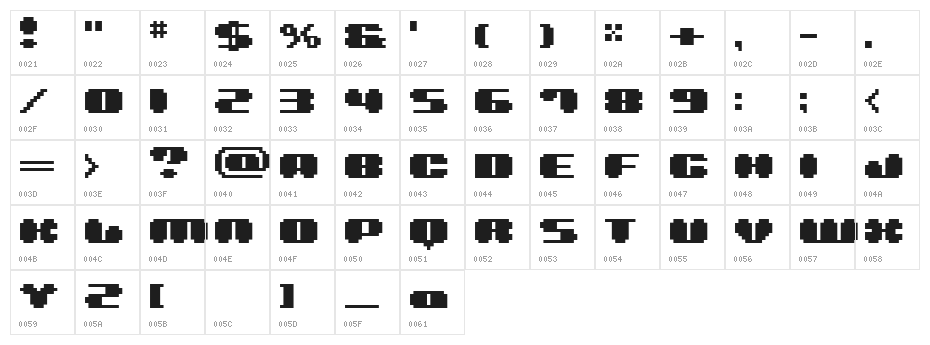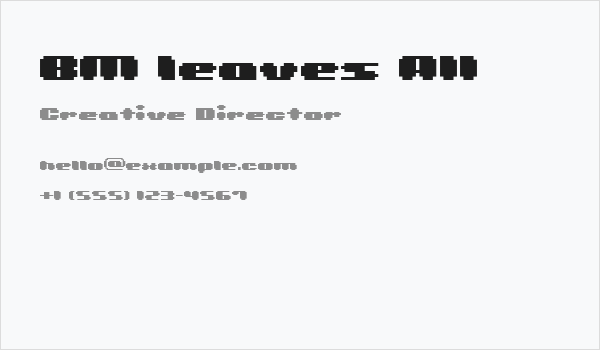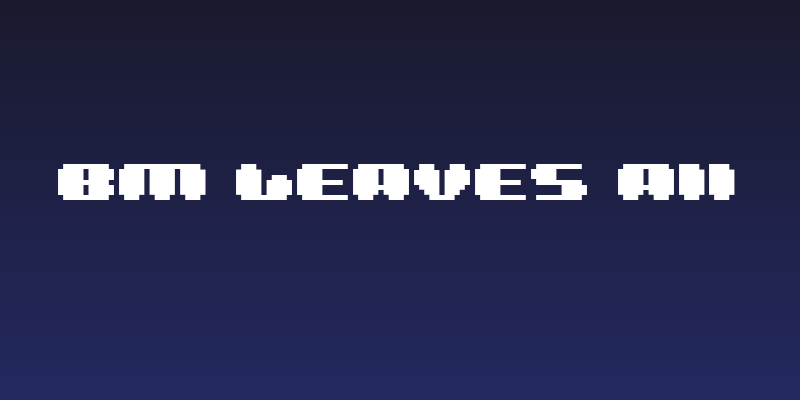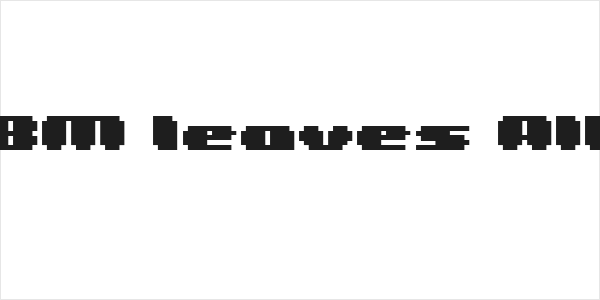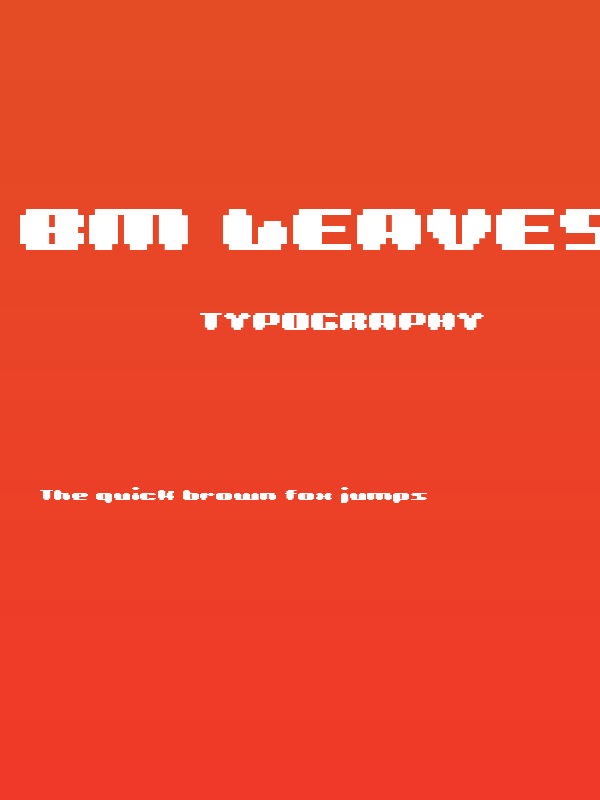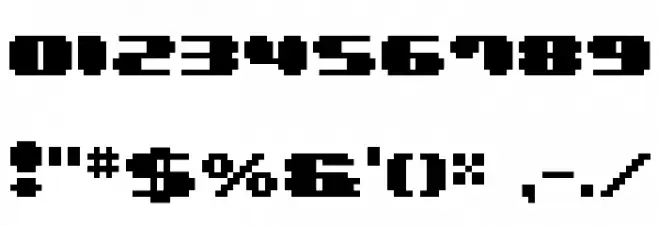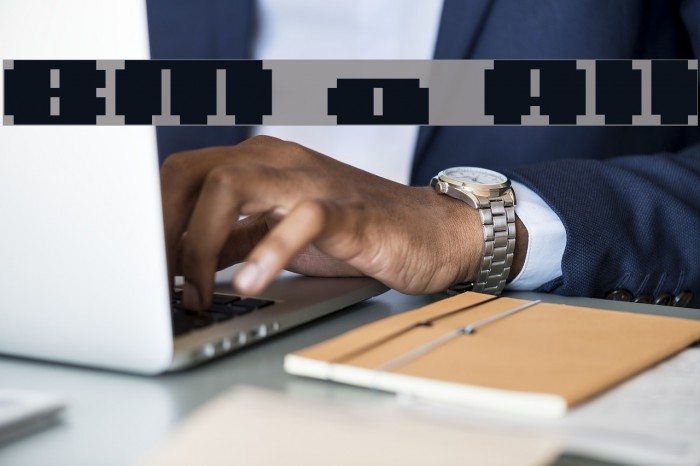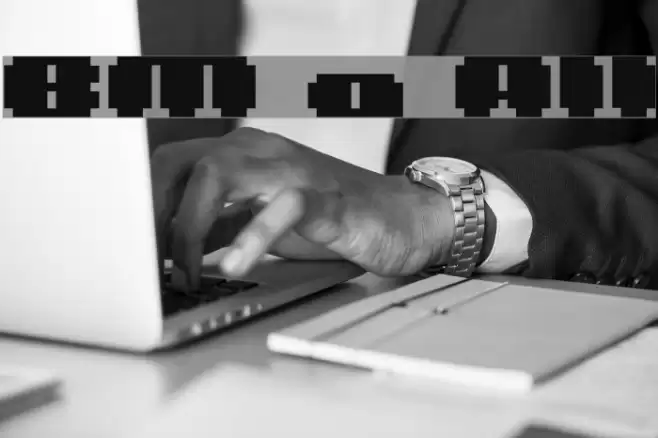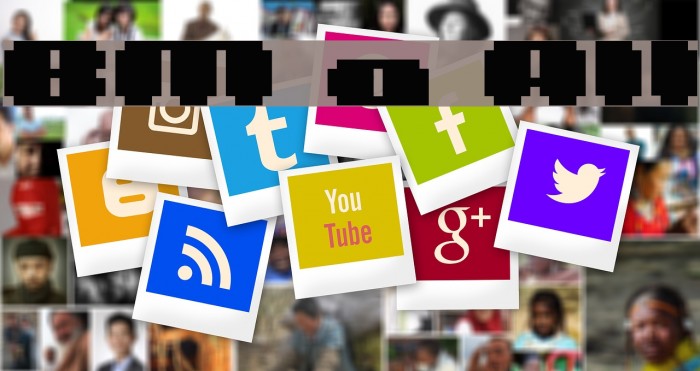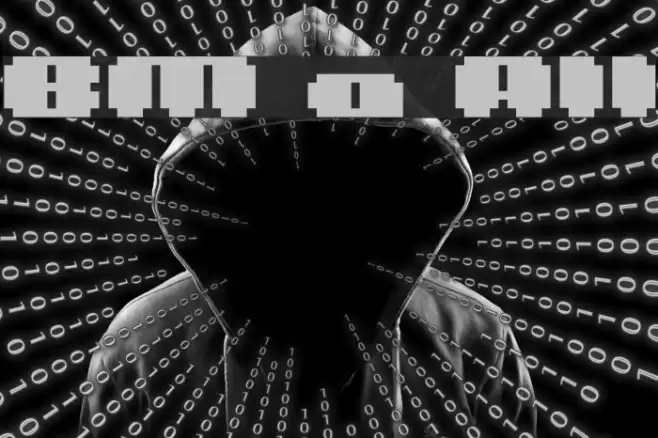
BM leaves A11 Font
BM leaves A11 Description
This font features a bold, pixelated style reminiscent of early digital or video game typography. Each character is constructed with a blocky, geometric form, giving it a distinctly retro and digital aesthetic. The uppercase and lowercase letters maintain a consistent width, contributing to a uniform appearance across text. Numbers and special characters follow the same design principles, ensuring cohesion throughout. The font's style is both striking and nostalgic, making it ideal for projects that aim to evoke a sense of classic digital or arcade themes.
| Overall Style | Retro, Digital |
| Use Case | Headlines, Logos, Digital Art |
| Proposed Projects | Ideal for video game design, retro-themed posters, digital art, and any project seeking a nostalgic digital look. |